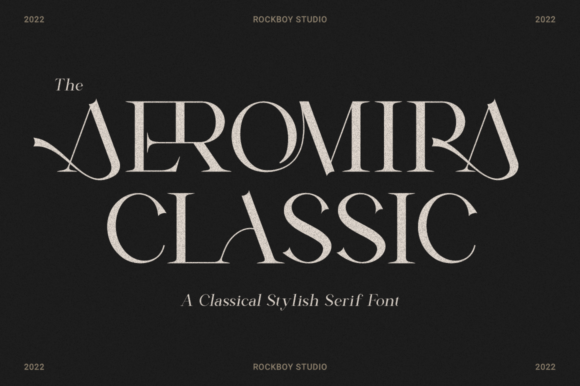
Discover the Timeless Elegance of the Aeromira Classic Font
You know that moment when you’re working on a project and the right font can elevate everything? It’s like the missing piece falls into place, and your design transforms from good to great. For designers, finding the perfect font can be a game-changer. That’s where the Aeromira Classic Font comes in – a beautiful, thin-lettered serif font that exudes elegance and sophistication.
Aeromira Classic Font is designed to evoke a sense of classic calligraphy, yet it feels refreshingly modern and contemporary. Whether you’re working on a high-end branding project, a luxurious wedding invitation, or a premium magazine layout, this font is sure to bring your designs to life. Its timeless charm and versatility make it a valuable asset for any designer looking to add a touch of sophistication to their work.
Aeromira Classic Font Key Features
- Font Family: Aeromira Classic Font is a serif font with a classic, elegant look, ideal for formal and professional applications.
- Character Set: Supports a wide range of languages, including Latin, Cyrillic, and Greek alphabets, making it suitable for international publications and documents.
- Unique Characteristics: Aeromira Classic Font features a distinctive, vintage-inspired design with subtle flair and ornate details, adding a touch of sophistication to any layout or composition.
Aeromira Classic Font Review
I recently had the chance to work with the Aeromira Classic Font, and I must say it’s a decent addition to any design project. ✨ The font’s classic feel and elegant lines make it suitable for a wide range of applications, from traditional printing to digital media. The font’s serifs are crisp and well-defined, adding a touch of sophistication to any text.
- ✨ Classic and timeless design makes it versatile for various applications
- ✨ Elegant lines and well-defined serifs add sophistication to text
- ✨ Suitable for both traditional and digital media
- ⚠️ May not be suitable for modern or edgy designs
- ⚠️ Some characters may not display correctly in certain fonts or sizes
Overall, I think the Aeromira Classic Font is a solid choice for designers who want a classic, elegant look. While it may have some limitations, it’s well-suited for a wide range of applications and can add a touch of sophistication to any design project.
1. Use the font in conjunction with other classic design elements, such as distressed textures and vintage graphics.
2. Experiment with different font sizes and colors to create visual interest.
3. Use the font in headings and subheadings to create a clear hierarchy of information.
1. Retro-themed designs, such as vintage advertisements and classic movie posters.
2. Historical documents and presentations, such as academic papers and historical lectures.
3. Creative projects, such as art portfolios and creative writing projects.